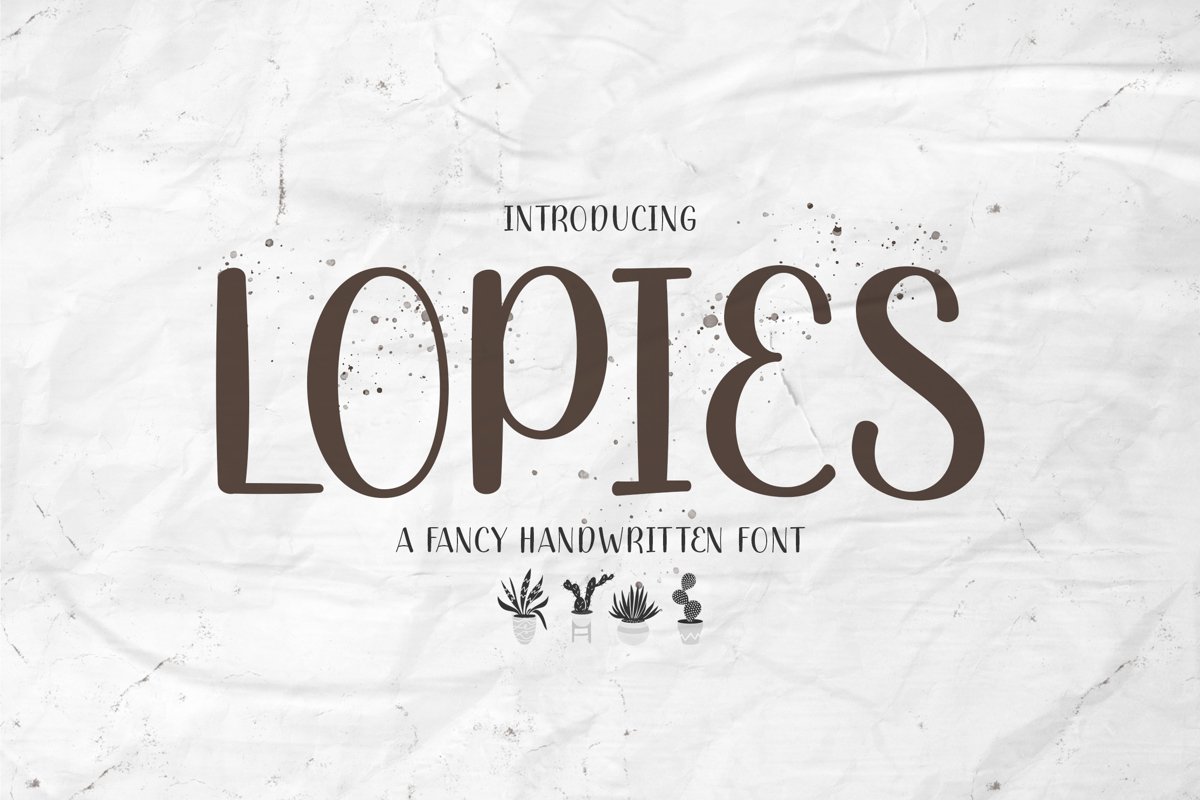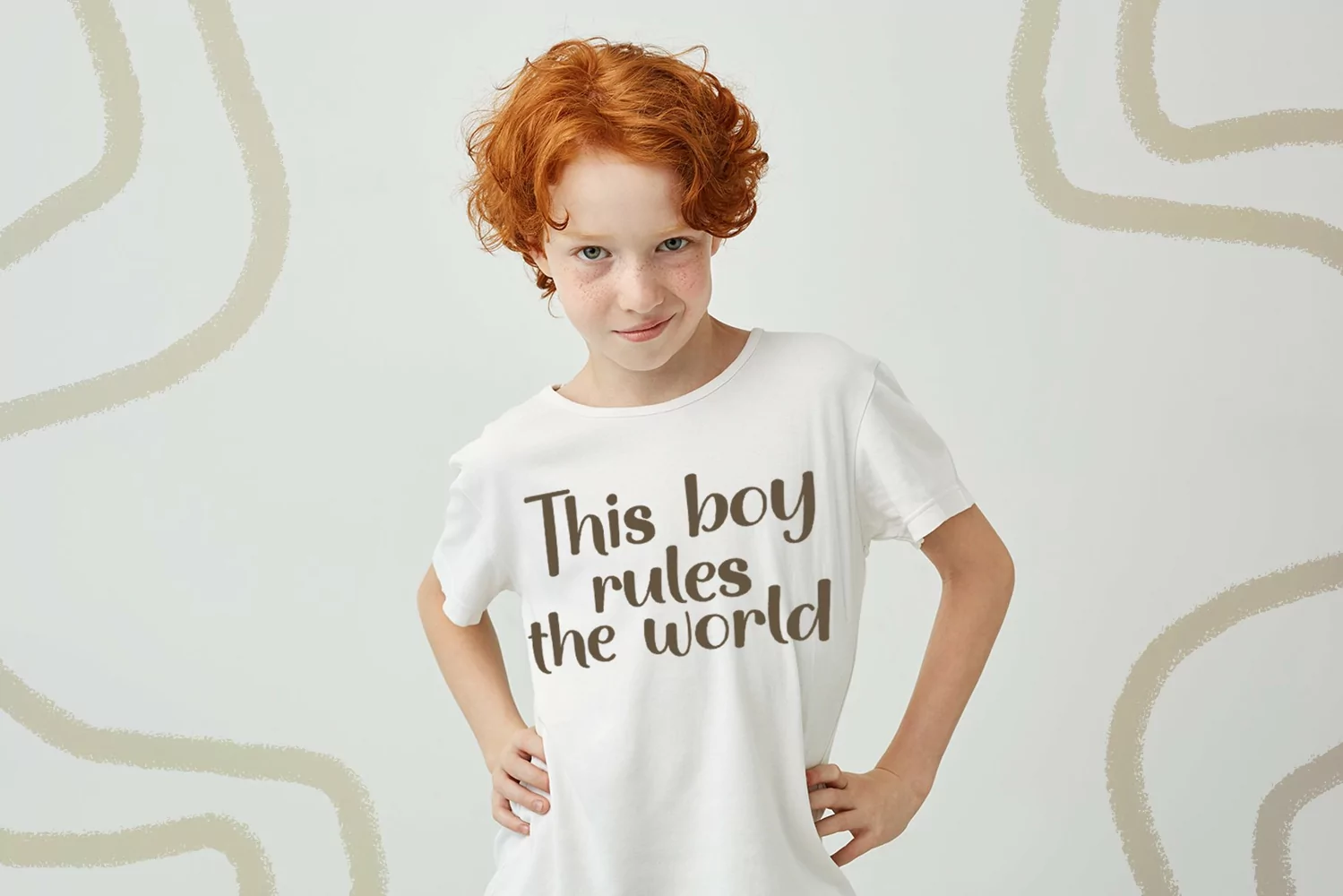
Lopies is a fancy handwritten display typeface. Perfect for display, quotes, product, branding, business card, name card, invitation card, merchandise, packaging, logo, logotype, crafting needs and many more.